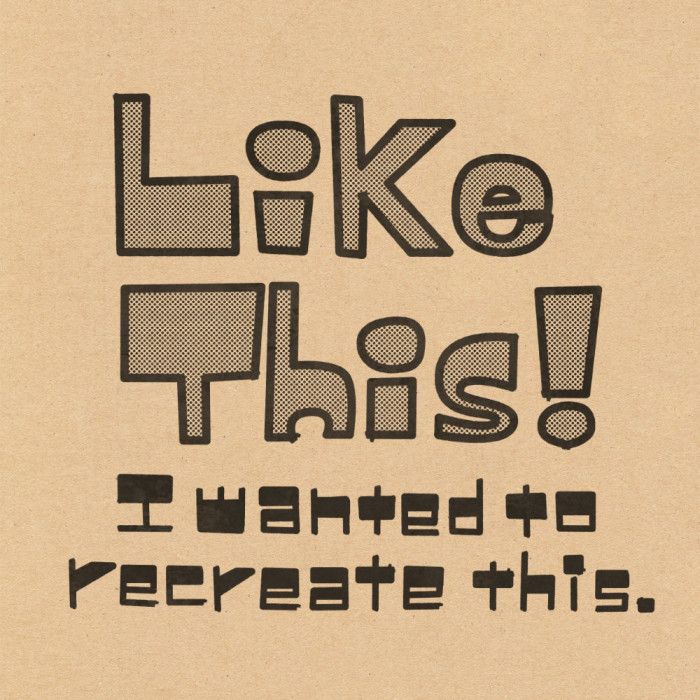
• This font made to resemble my handwritten character.
You write like that? how?
A nice bold retro font :)
Retro, yes, but not into syrup-style nostalgia for1940s display text. More like something from the 1960s but squared-off. Well balanced line arrangement.